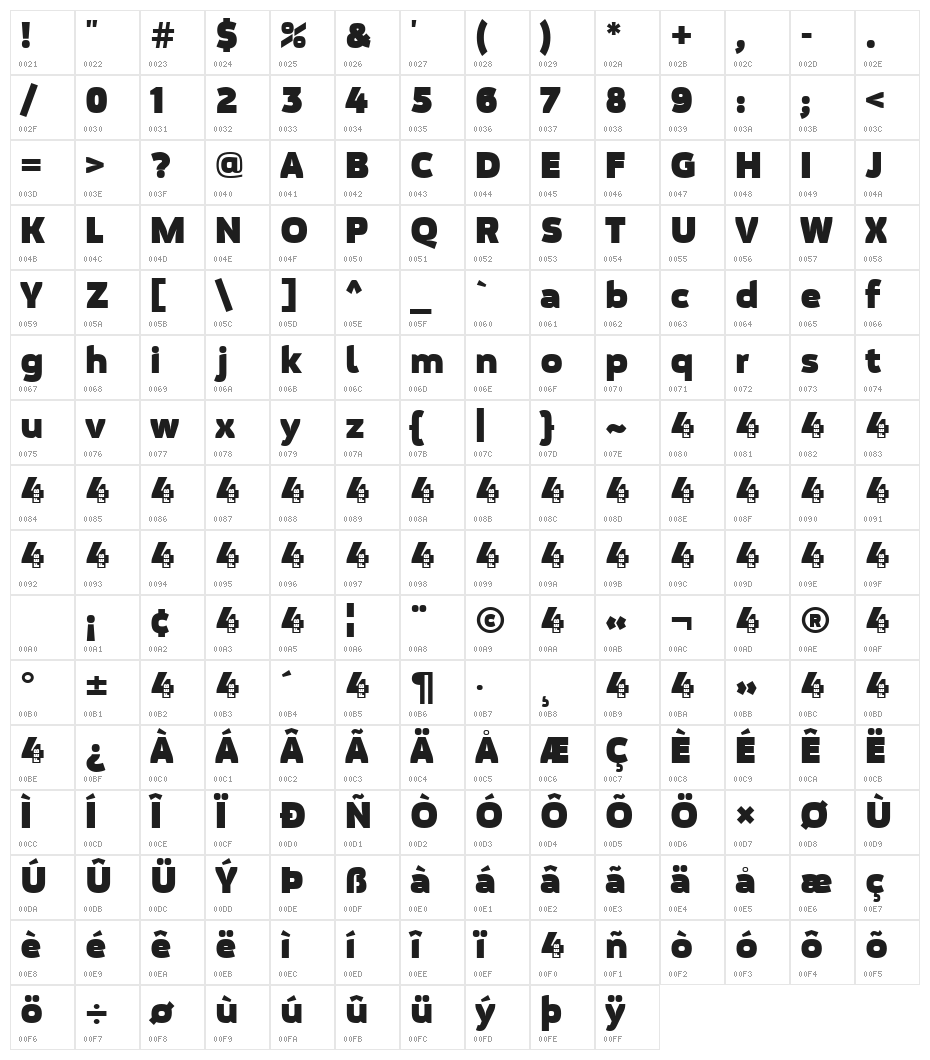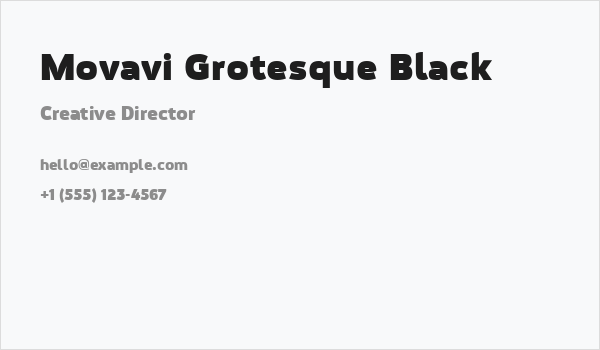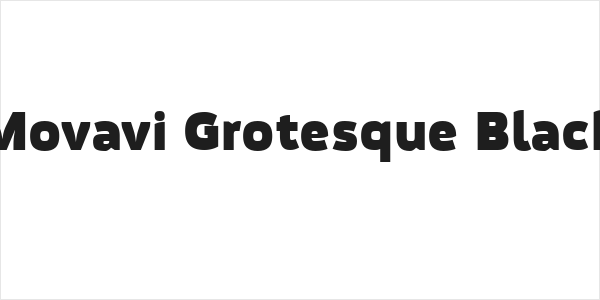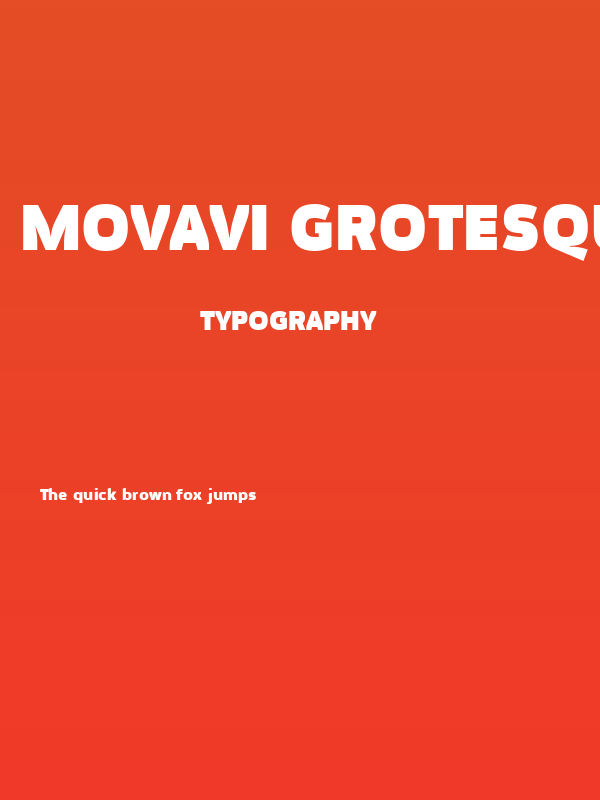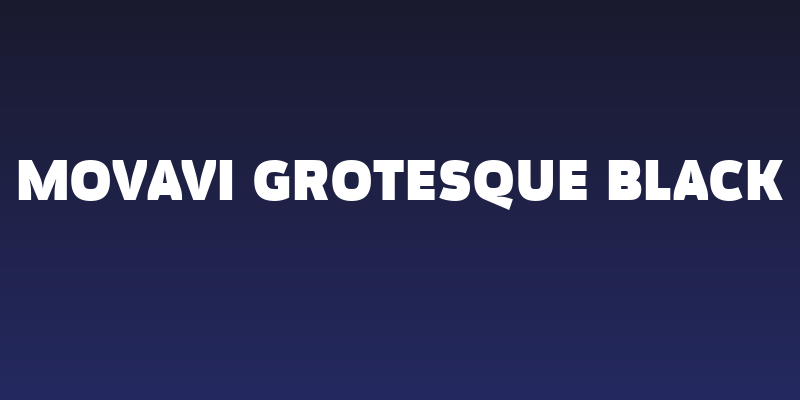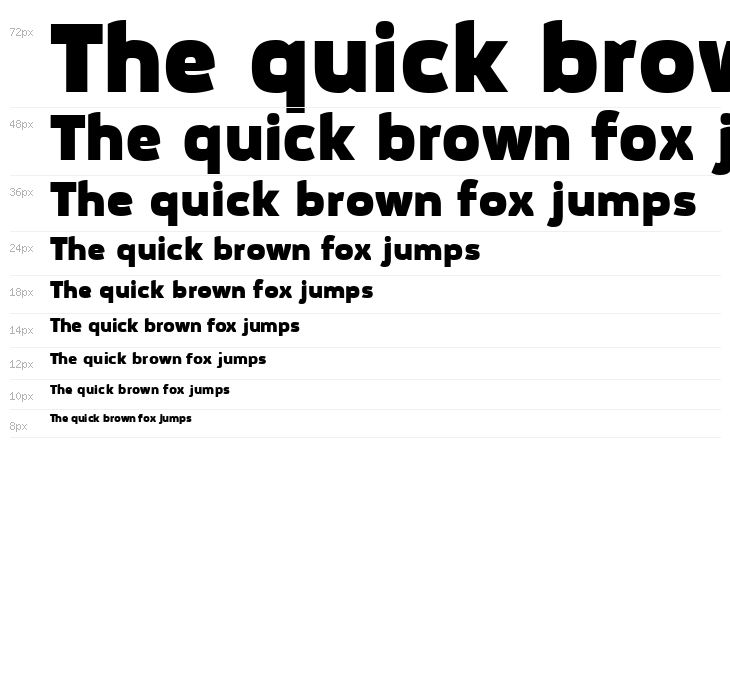
Movavi Grotesque Black Font
Movavi Grotesque Black Description
This font features a bold and robust design, characterized by thick strokes and a strong presence. The uppercase and lowercase letters are well-proportioned, with a consistent weight throughout. The numerals are clear and easily distinguishable, making them suitable for various applications. Special characters are included, maintaining the same bold style. The overall appearance is modern and impactful, making it ideal for attention-grabbing headlines and branding projects.
| Proposed Projects | Ideal for branding, headlines, posters, and advertising materials. |